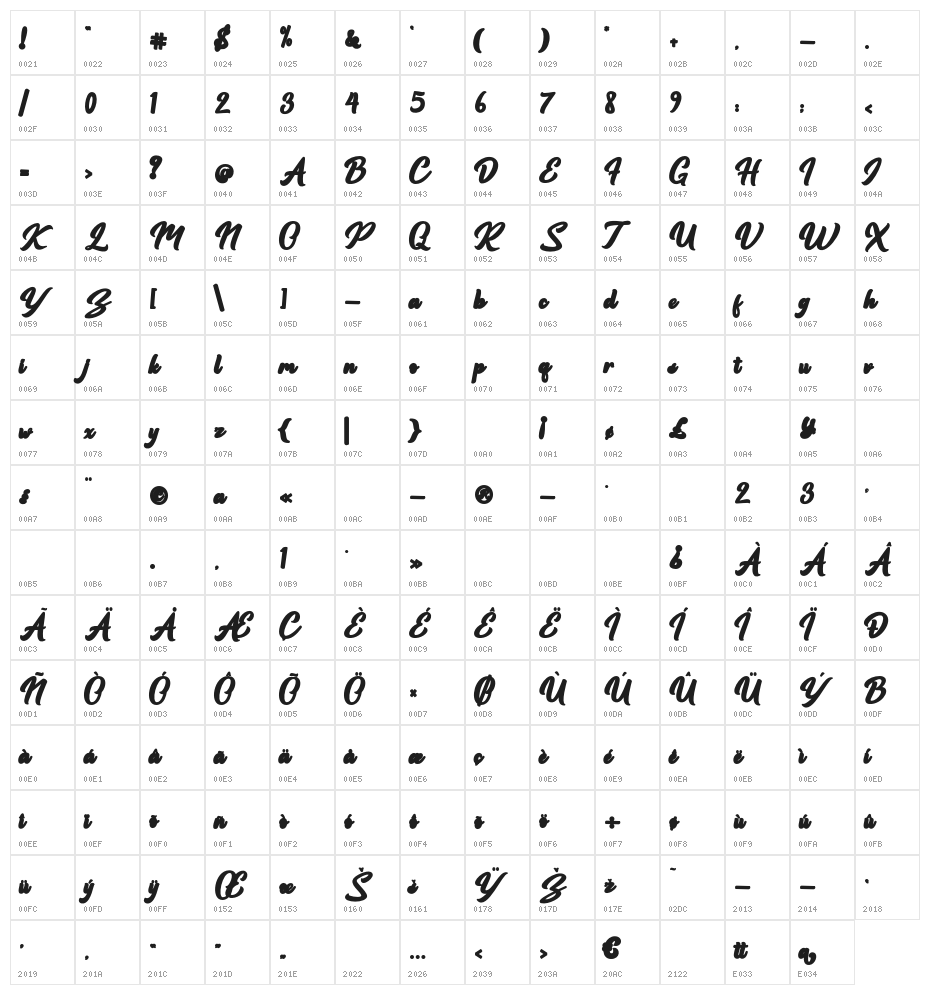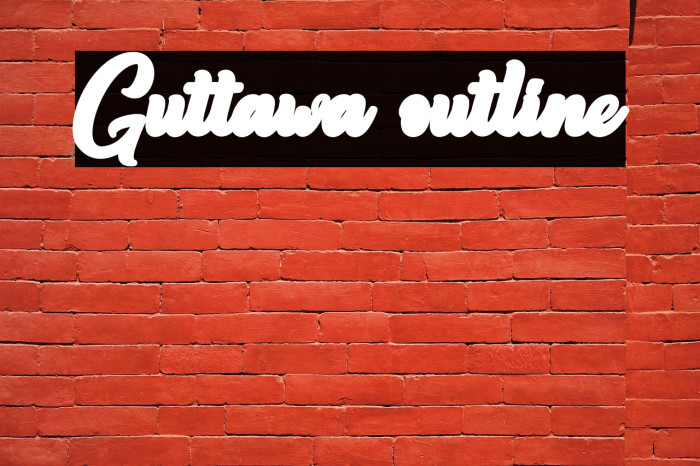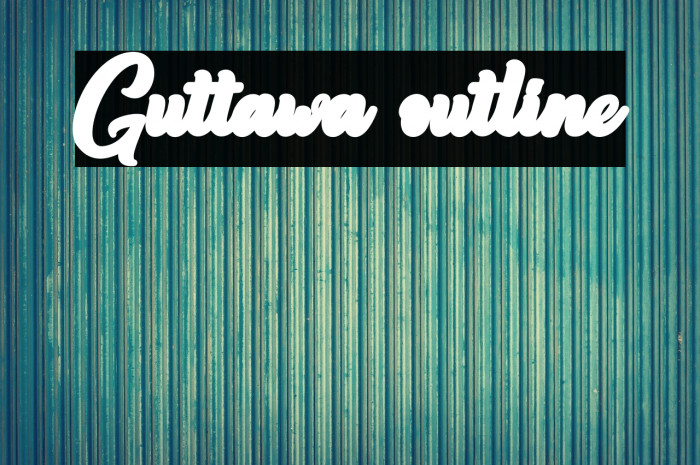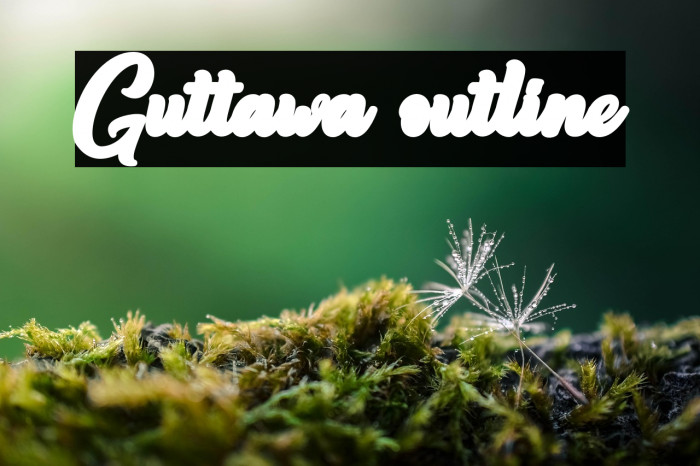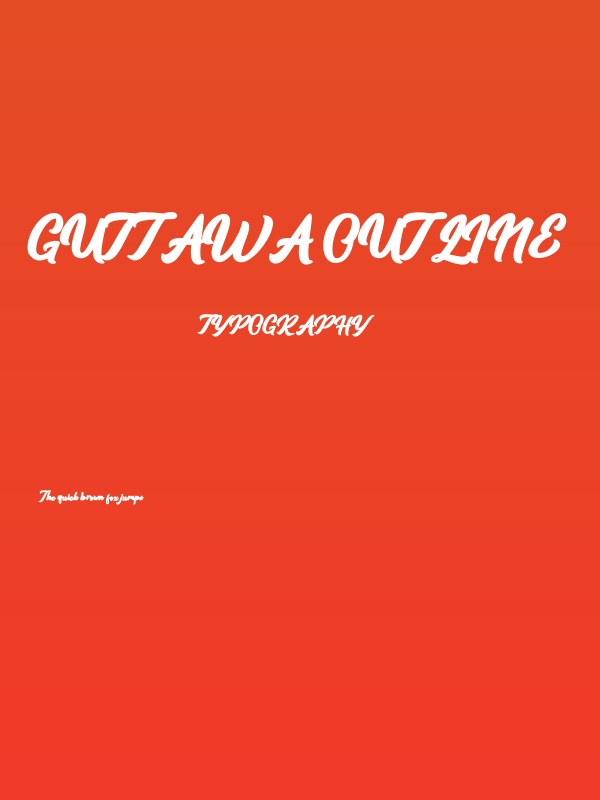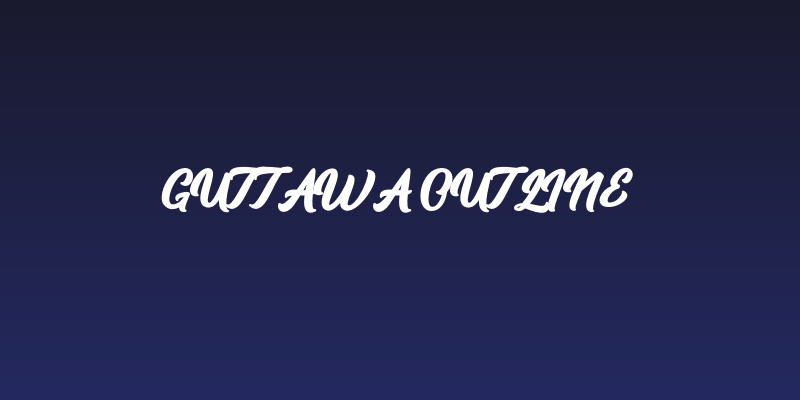
Guttawa outline Font
Guttawa outline Description
This font features a bold, cursive style with a strong emphasis on fluidity and elegance. The characters are closely connected, creating a seamless flow that mimics natural handwriting. The uppercase letters are slightly larger and more ornate, while the lowercase letters maintain a consistent, rounded form. Numbers and special characters are designed to match the overall aesthetic, ensuring a cohesive look across all text. The font's thick strokes and smooth curves give it a dynamic and lively appearance, making it suitable for a variety of creative applications.